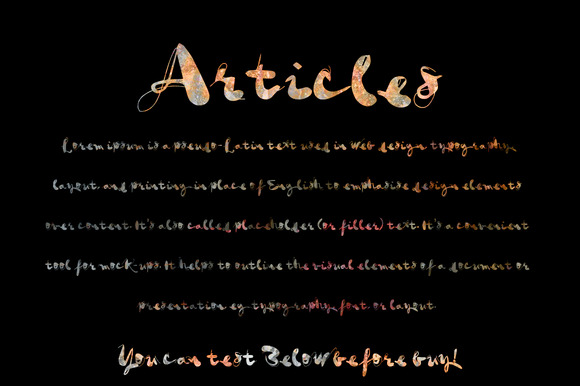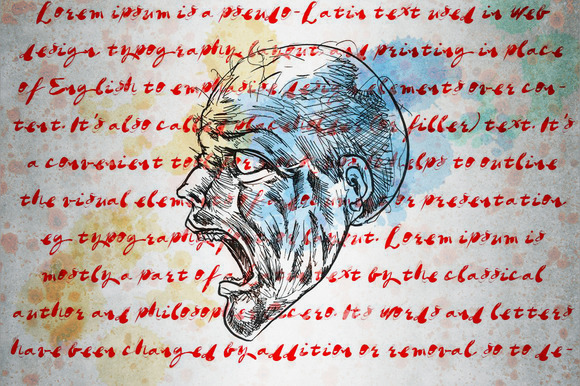
Articles Brush Font
Introducing brush font. Articles Brush Font is a font that made the hand by having the character up and down like a dancer. Articles has a very unique style of calligraphy, it is very suitable for use in the work of modern design.